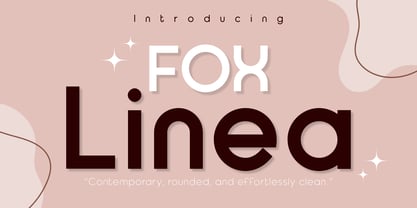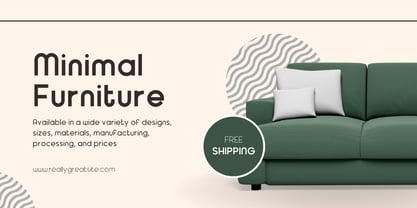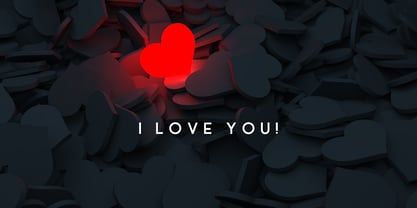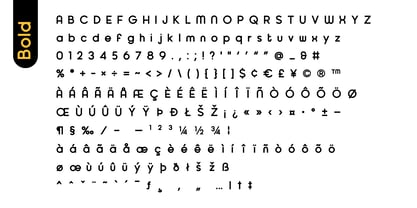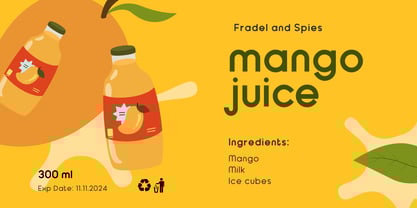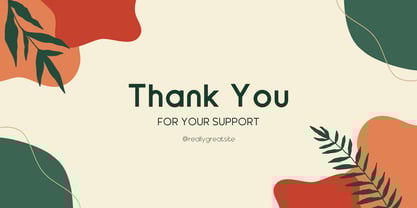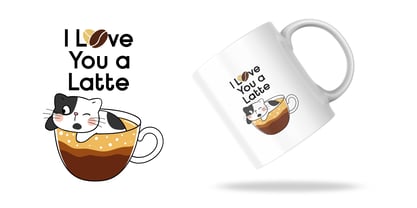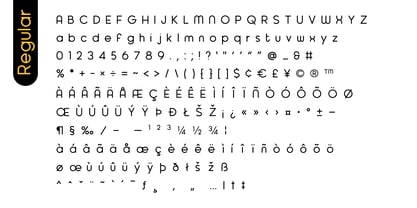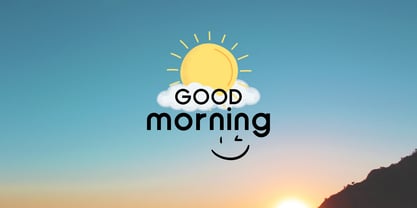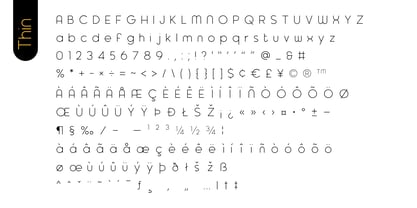
Fox Linea
by Fox7
Fox Linea is a contemporary sans serif typeface that blends minimalism with soft, rounded curves. Designed to be effortlessly clean and versatile, this font is perfect for branding, digital products, social media, packaging, and modern editorial design.
With 3 font weights – Bold, Regular, and Thin – Fox Linea adapts to a variety of creative needs, offering balance and clarity at every size.
✨ Font Features:
• 3 Weights: Bold, Regular, Thin
• Clean, rounded geometric shapes
• Smooth legibility and modern personality
• Ideal for logo design, headlines, Instagram posts, quotes, and minimalist layouts
• Multilingual Support
Designers: Rattana Rattanawan
Current Foundry: Fox7